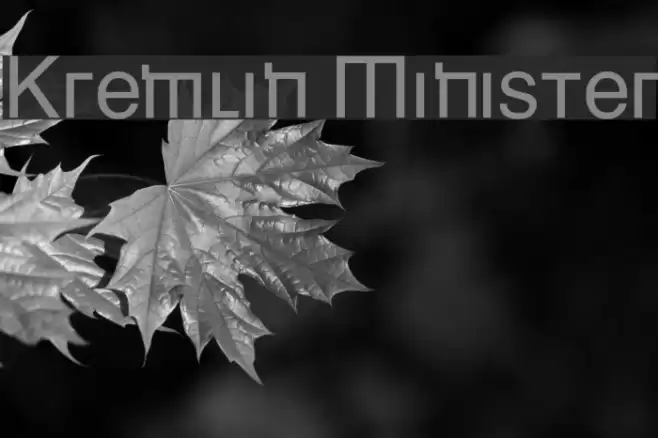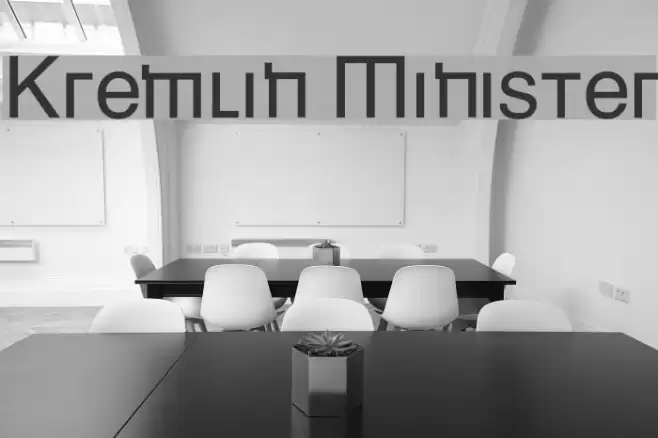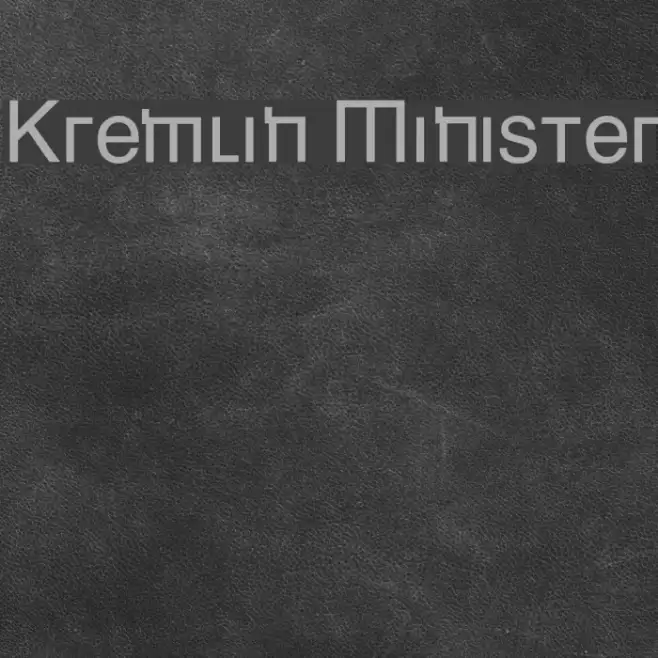
Kremlin Minister Font
Kremlin Minister Description
This font features a modern and geometric design with clean lines and a structured appearance. The characters are uniformly shaped, providing a sense of balance and precision. The uppercase letters are bold and assertive, while the lowercase letters maintain a consistent style with slightly softer curves. The numerals are clear and easy to read, making them suitable for various applications. Special characters are included, offering versatility for different contexts. The overall design is sleek and contemporary, ideal for projects that require a professional and polished look.
A modern, geometric font with clean lines and a structured appearance from Uncategorized fonts.
- Proposed Projects: Ideal for corporate branding, digital interfaces, and editorial design.